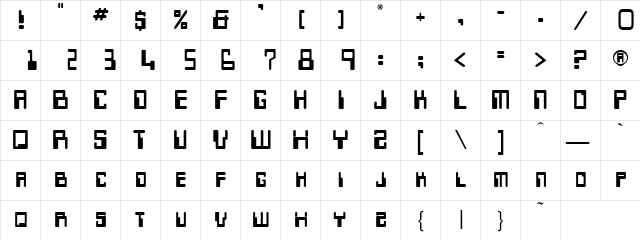
Keypunch Regular
Design Context for Keypunch Typeface
Keypunch is a composed and adaptable typeface that performs quietly and consistently across a wide range of design contexts.
Pro Tip: Use Keypunch in both headline and body roles to test its range before committing to a single application.